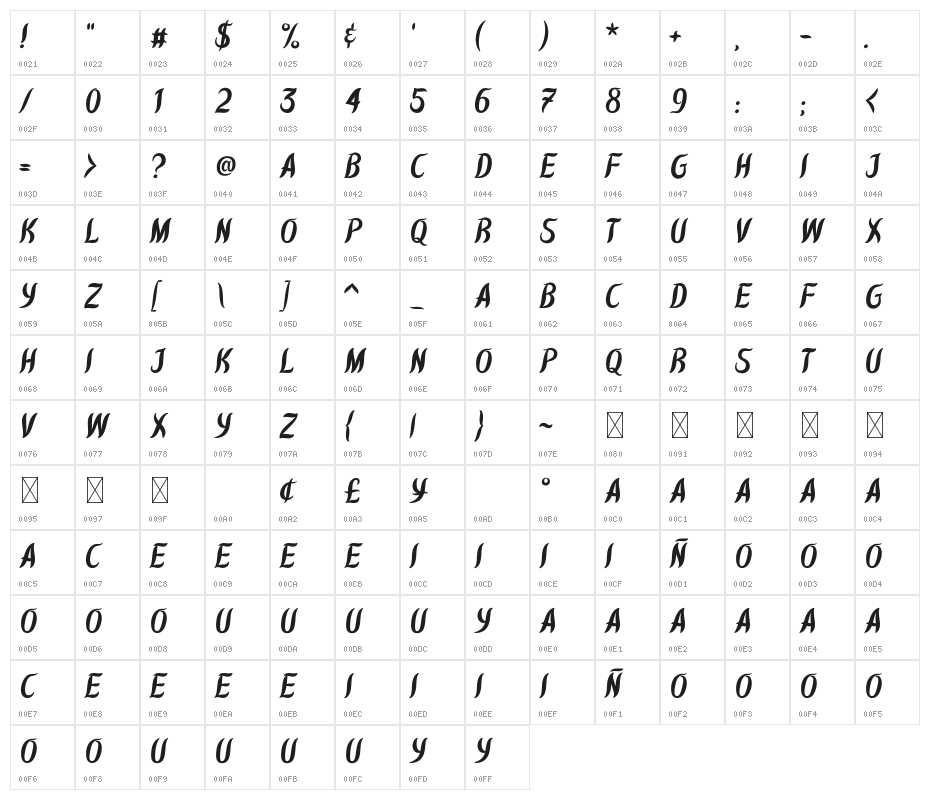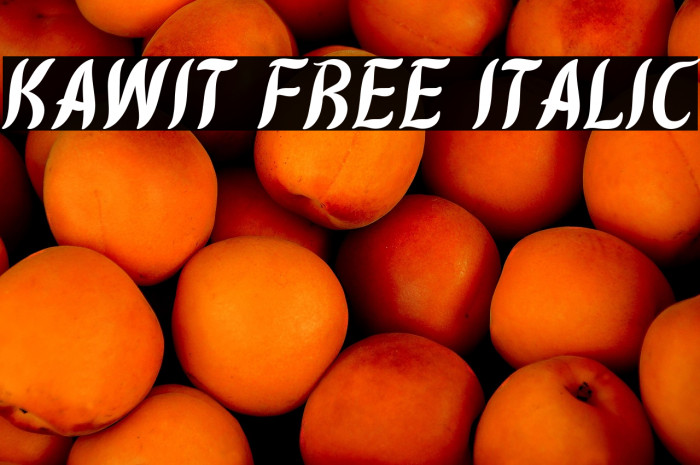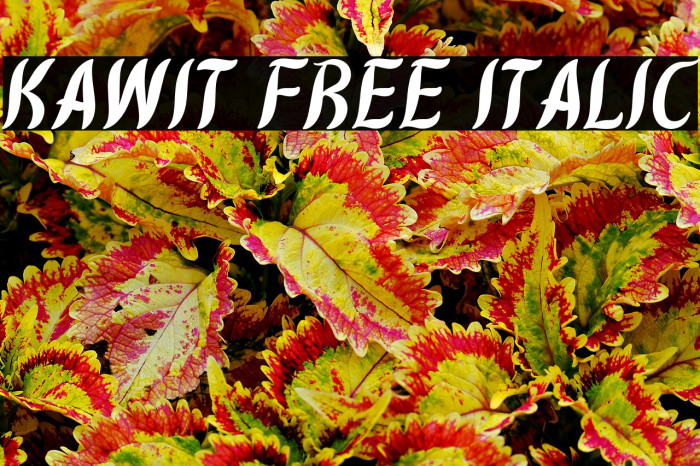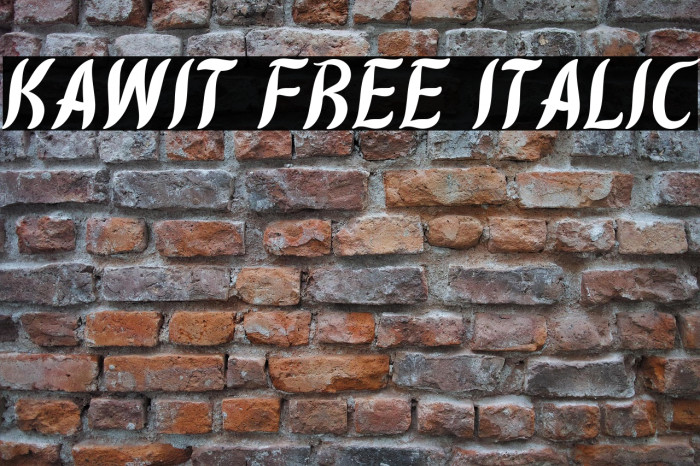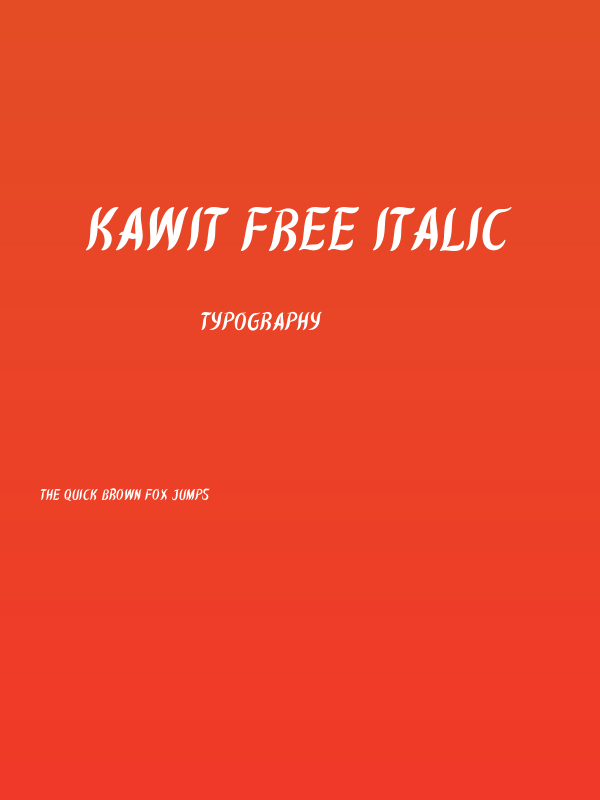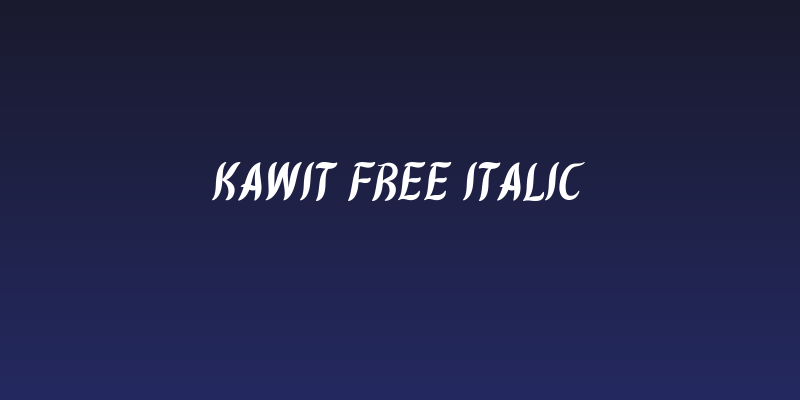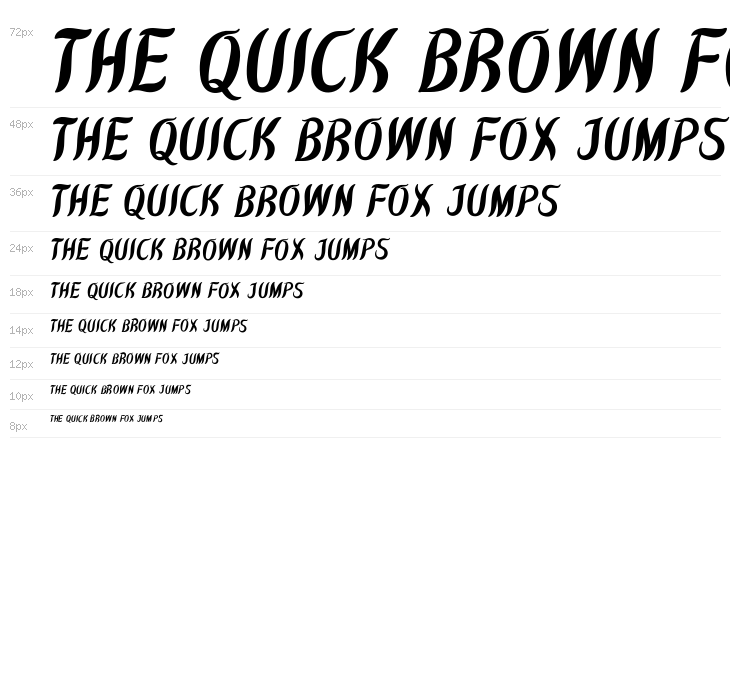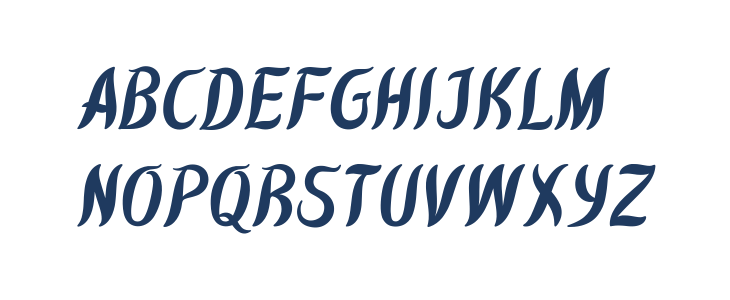
Kawit Free Italic Font
Kawit Free Italic Description
This font features a dynamic and flowing script style, characterized by its elegant, cursive letterforms. The strokes are smooth and slightly exaggerated, giving it a sense of movement and fluidity. The uppercase letters are bold and prominent, while the lowercase letters maintain a consistent slant, enhancing the italicized appearance. The numerals are distinct and maintain the same stylistic curves as the letters, ensuring a cohesive look. Special characters are well-integrated, matching the overall aesthetic with their curved and flowing design. This font exudes a sense of sophistication and creativity, making it suitable for projects that require a touch of elegance and flair.
| Overall Style | Elegant, Creative |
| Use Case | Logos, Invitations, Artistic Projects |
| Proposed Projects | Ideal for wedding invitations, elegant branding, artistic posters, and creative logos. |